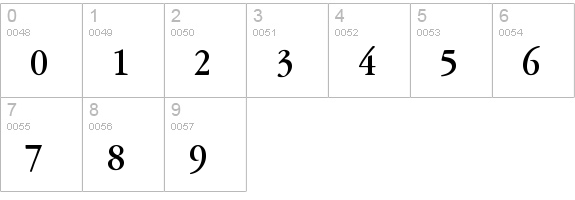
Garamont AMSTERDAM Medium is a balanced, medium-weight variant in the Garamont typeface family \xE2\x80\x94 well suited to sub-headlines, navigation, and balanced editorial work.
The Garamont AMSTERDAM Medium font exudes a timeless elegance and sophistication with its classic serif design and balanced proportions. Perfect for conveying a sense of professionalism and refinement, this versatile typeface is ideal for a wide range of design applications, from branding to editorial projects. What sets Garamont AMSTERDAM Medium apart is its remarkable clarity and readability, making it a reliable choice for both print and digital media. The medium weight strikes the perfect balance between boldness and delicacy, ensuring that your message is conveyed with impact and grace. And the best part? Garamont AMSTERDAM Medium is available for free download at FontsMarket.com, allowing you to enhance your projects with this premium font without breaking the bank. Don't miss out on the opportunity to elevate your designs with the timeless beauty of Garamont AMSTERDAM Medium.